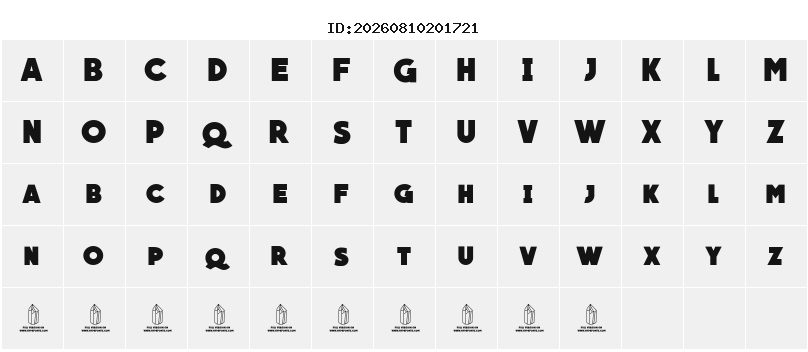
QUARTZO demo Preview
• Font Name: QUARTZO demo
• Full Font Name: QUARTZO demo Bold
• PostScript Name: QUARTZOdemo-Bold
• Designer: Guilhem Greco
• Manufacturer: Guilhem Greco / Hypefontsô
About QUARTZO demo.ttf
QUARTZO demo.ttf is a modern, elegant sans-serif font designed for ultimate readability and visual harmony. Perfect for branding, headlines, web design, and print materials.